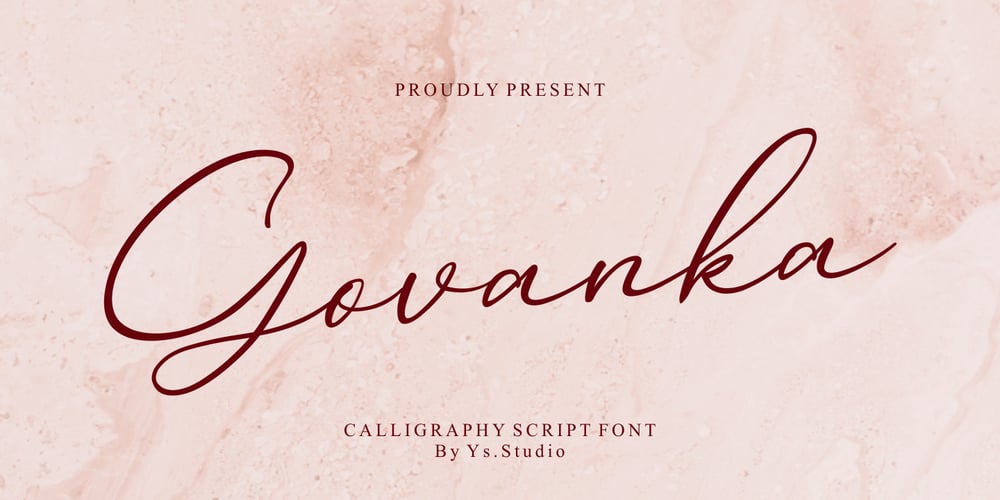
Govanka Font Family was designed by Yudi Safiyudin and published by Arunatype. Govanka contains 1 styles and family package options. Govanka is a beautiful and classic handwritten font. It is the best choice for creating attractive logos, branding projects, weddings, magazines, shops, and quotes. Each letter has a unique and beautiful touch, which will bring your designs to life!This font is PUA encoded, which means you can access all of the glyphs and swashes with ease!